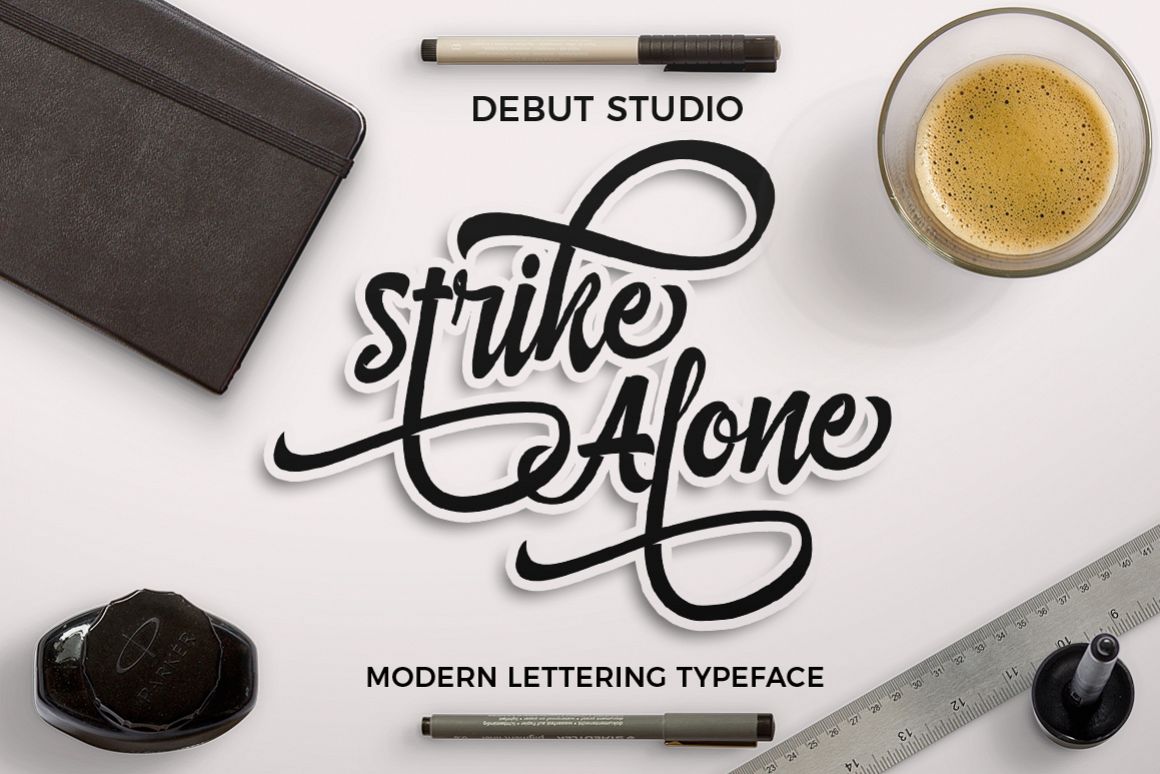
Strike Alone Script + Extra
Retro Swash
Strike Alone Script
Introducing **Strike Alone Script**
This font inspired from my handlettering, Like my font before, this font is the retro vintage style. So suitable for your design like the handlettering design, poster, branding, logo design, apparel t-shirt design and much more else.
- Uppercase, Lowercase, Numerals, & punctuations so - - Opentype alternates
- Common ligatures
- Swash